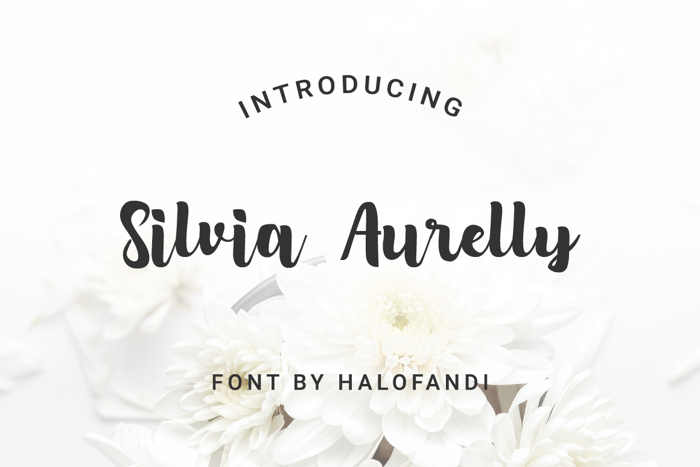
Silvia Aurelly Font
Silvia Aurelly results out of a stunning pairing of a brush pen and pencil that makes it look incredibly endearing and authentic. Use this gorgeous and unique handwritten font to bring any DIY project to life!